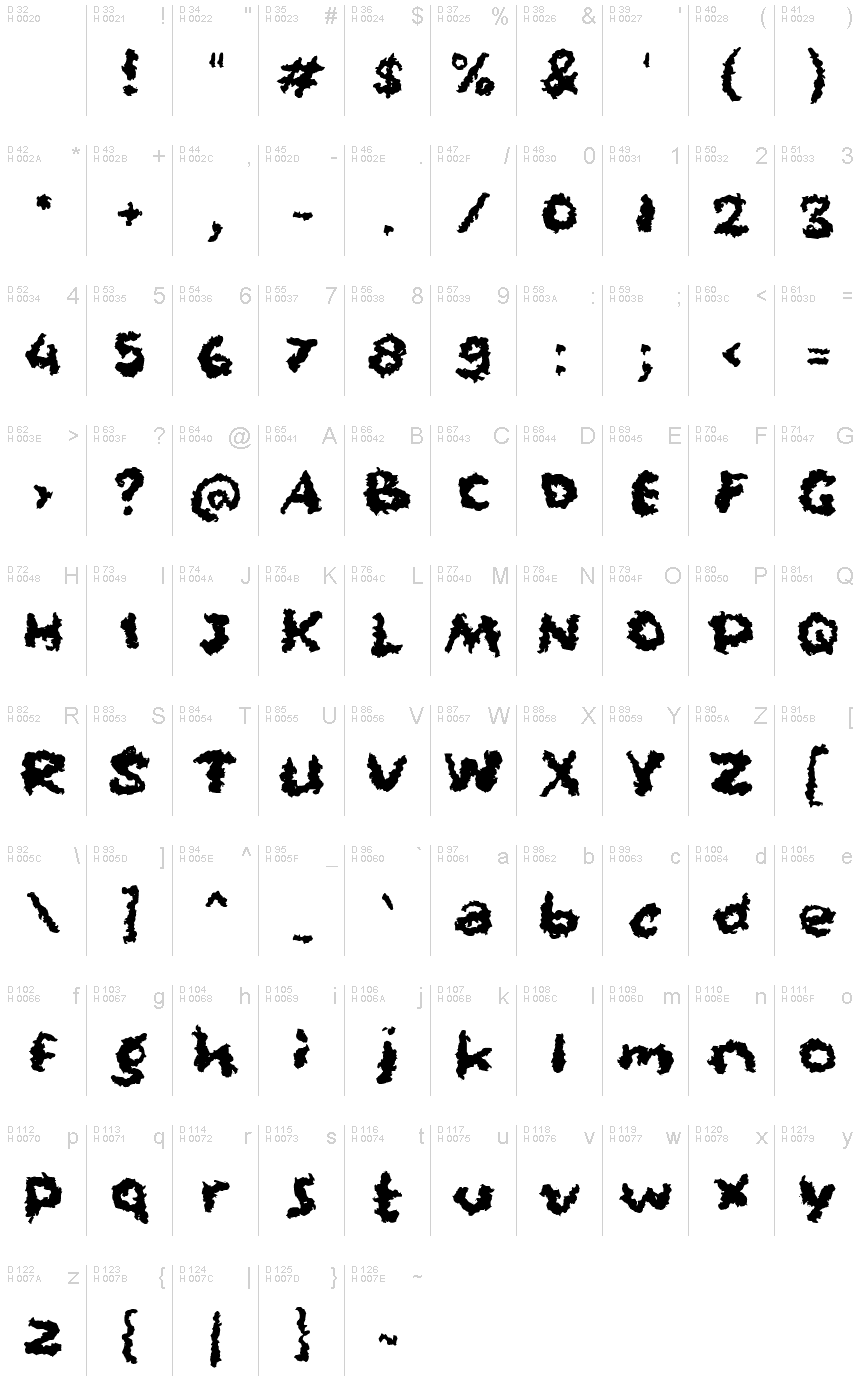
Dempo is a bold, wide script font with a trash and eroded style. Designed by Wahyu Eka Prasetya, it's perfect for projects that require an edgy look, such as rock music album covers, skateboarding logos and graffiti art prints.
Dempo
Wahyu Eka Prasetya